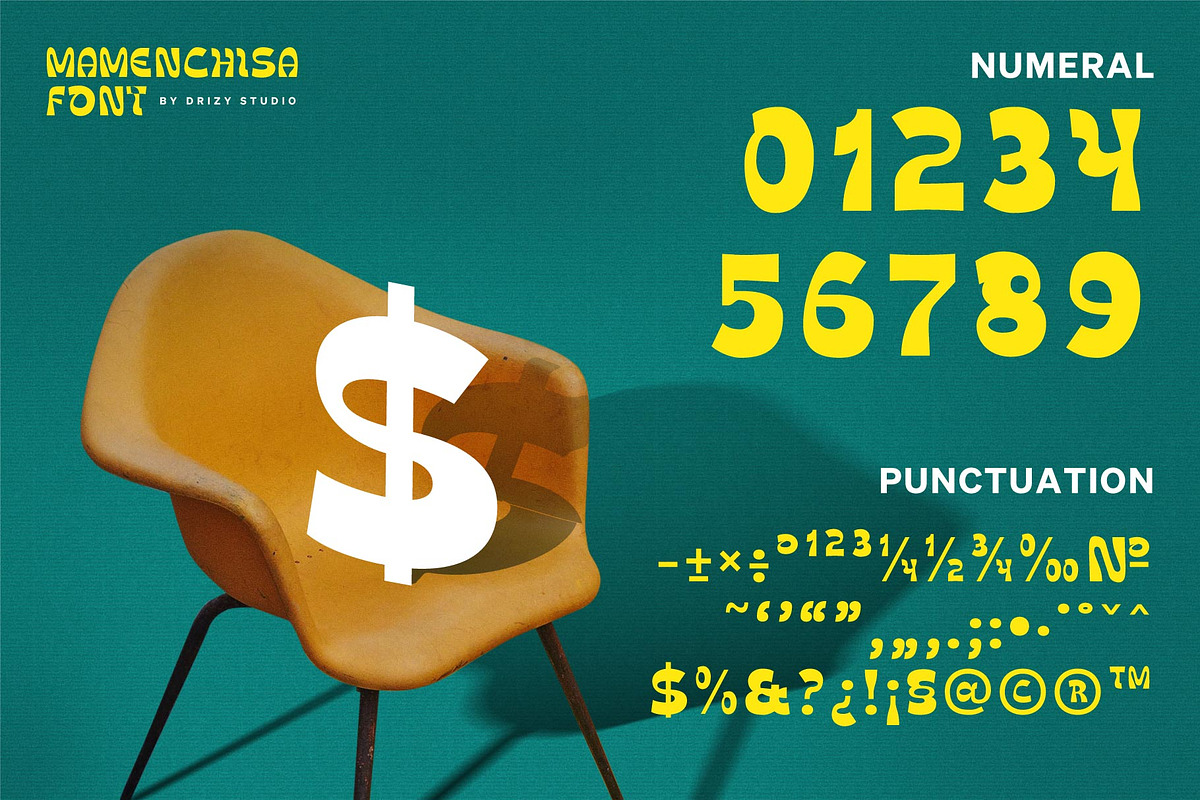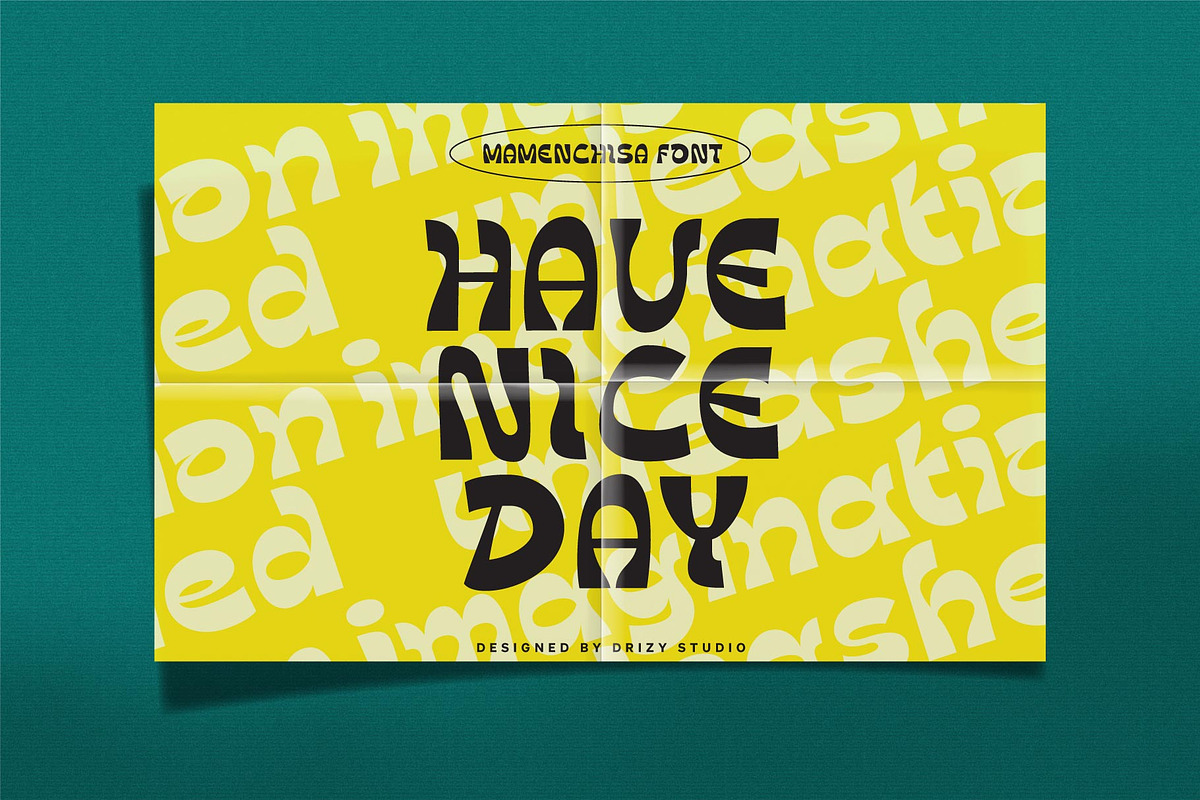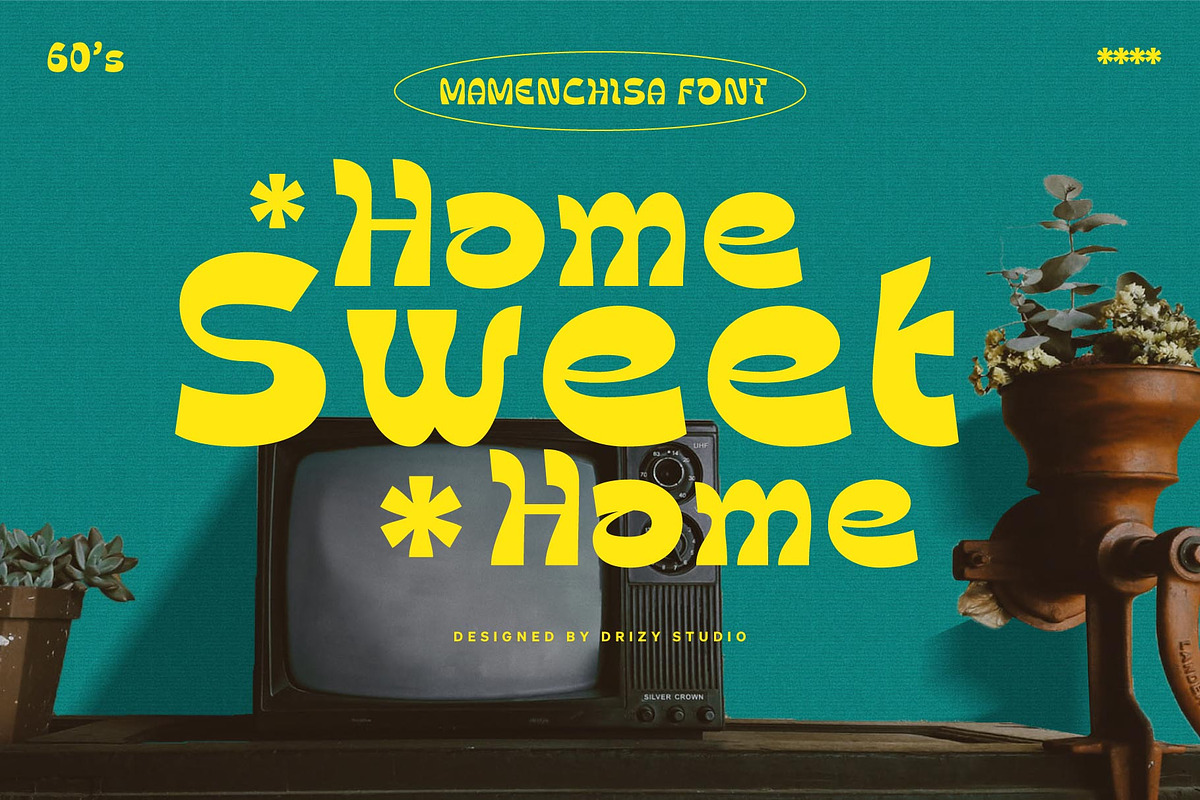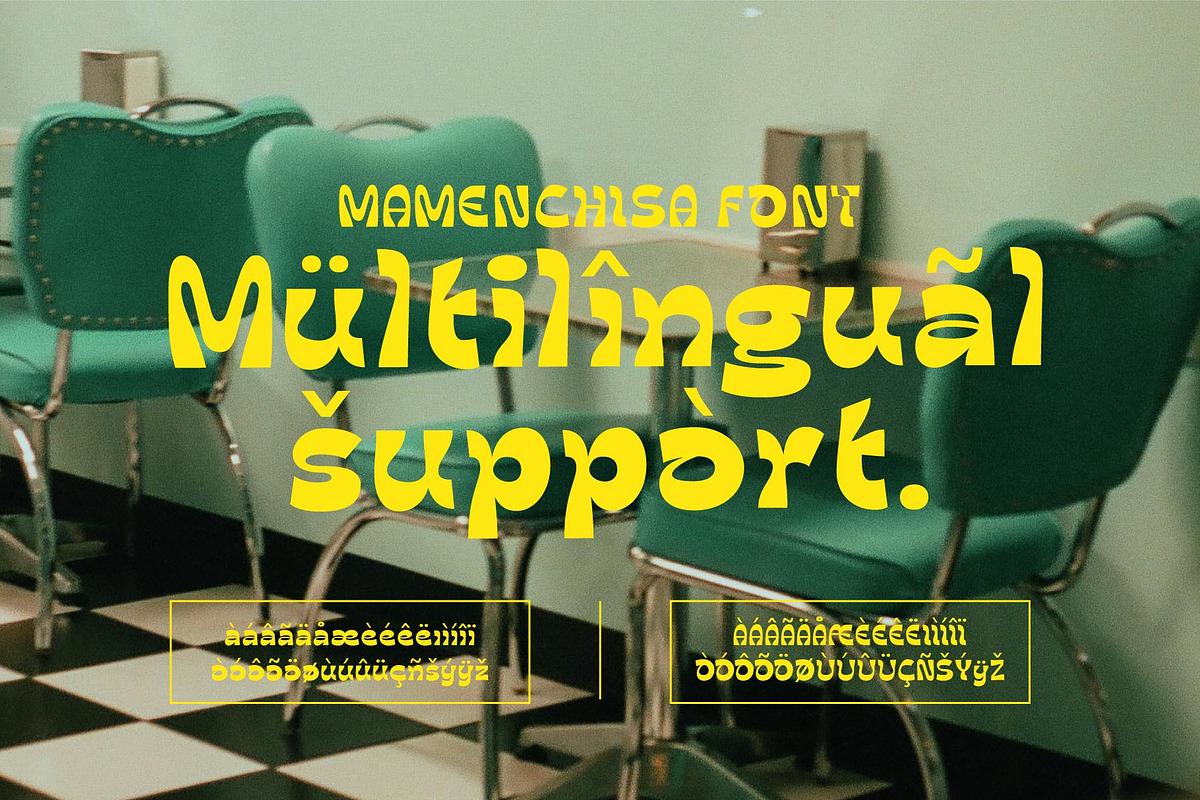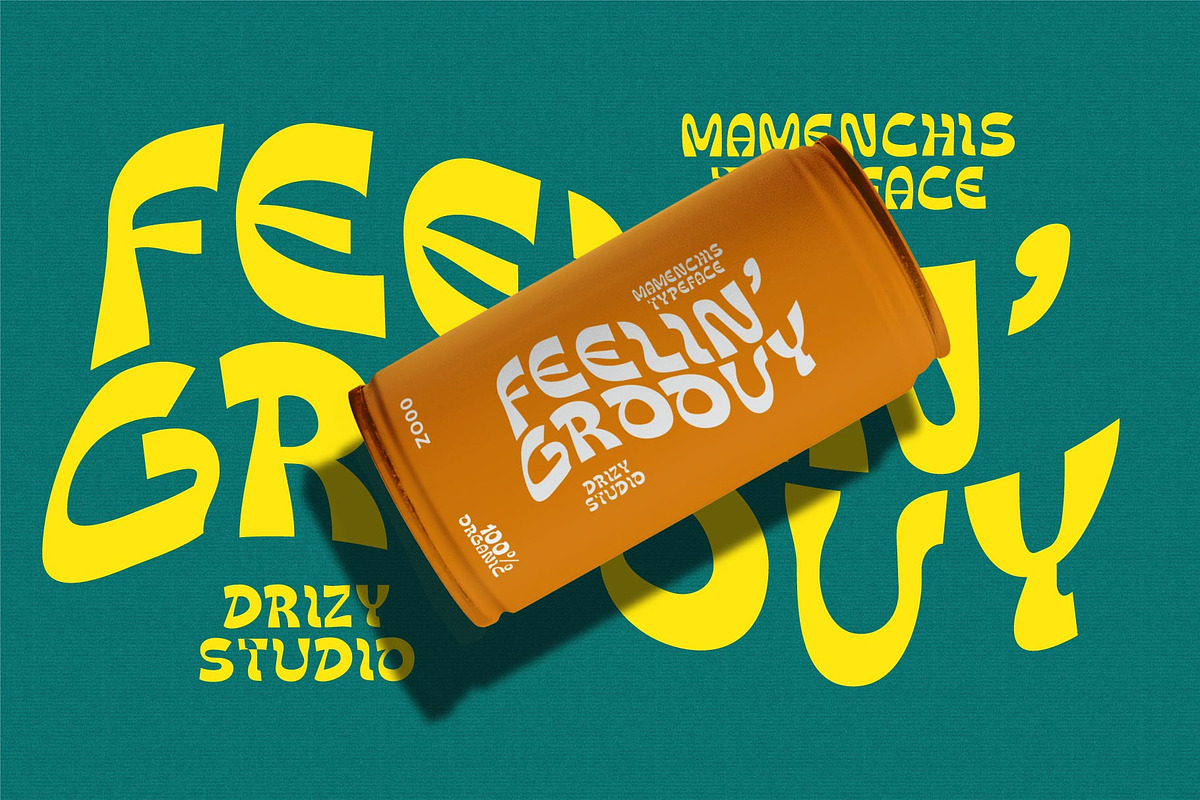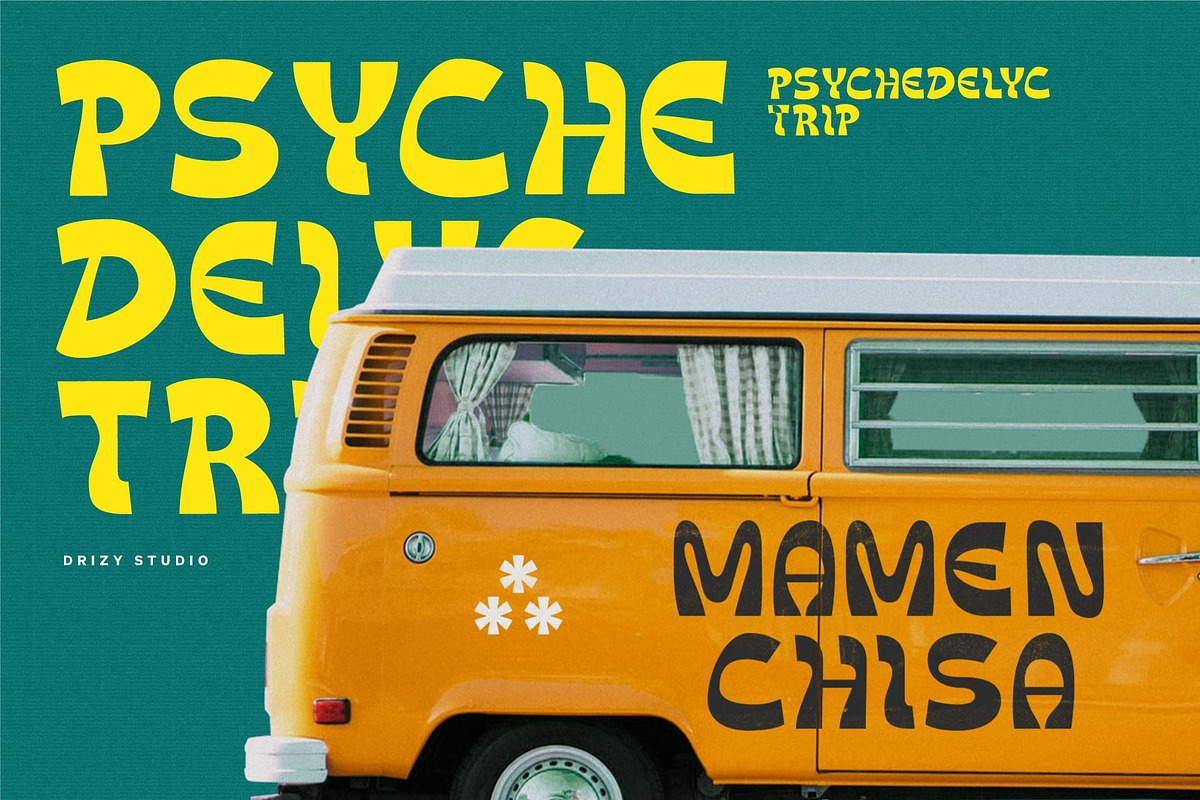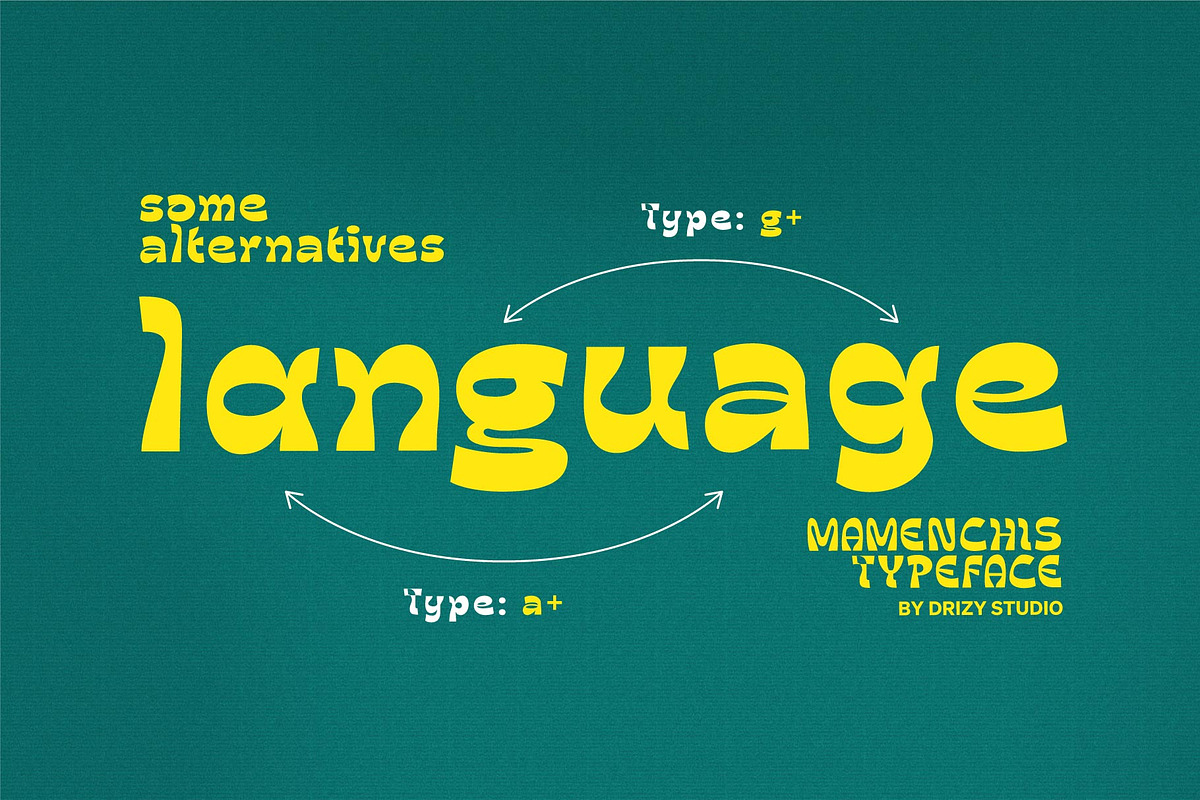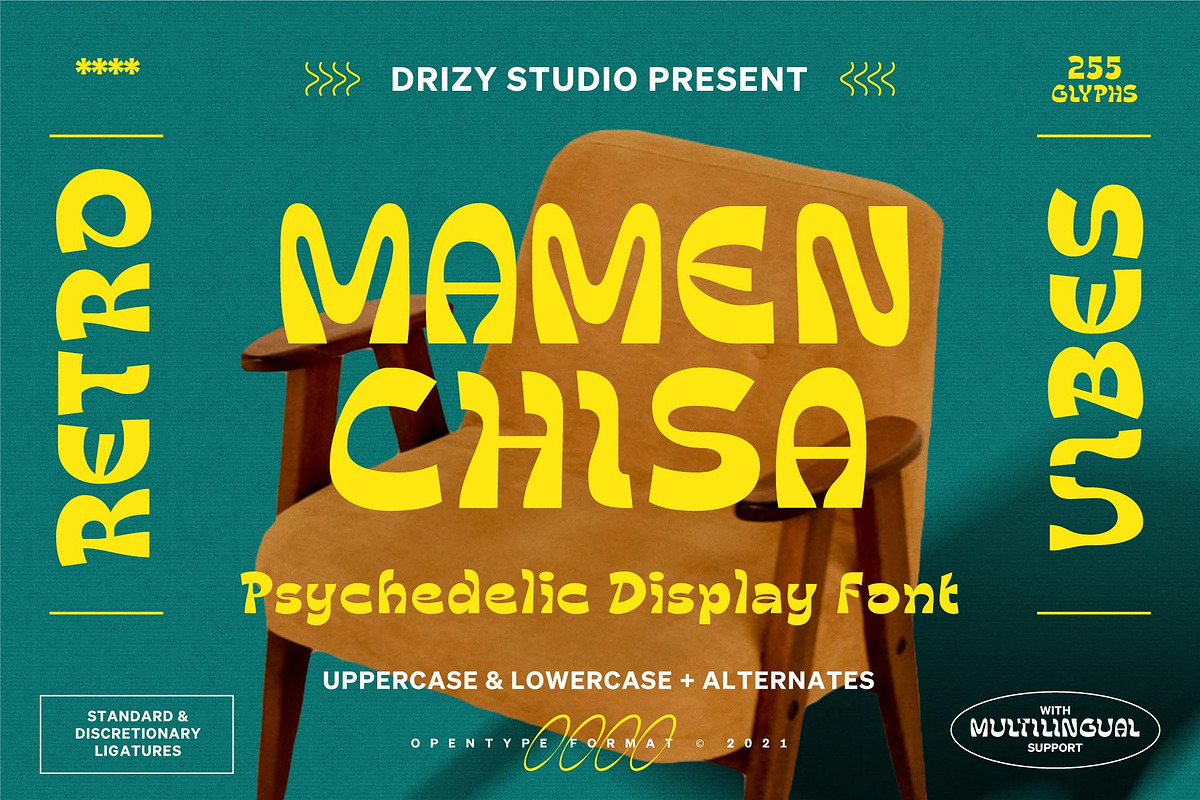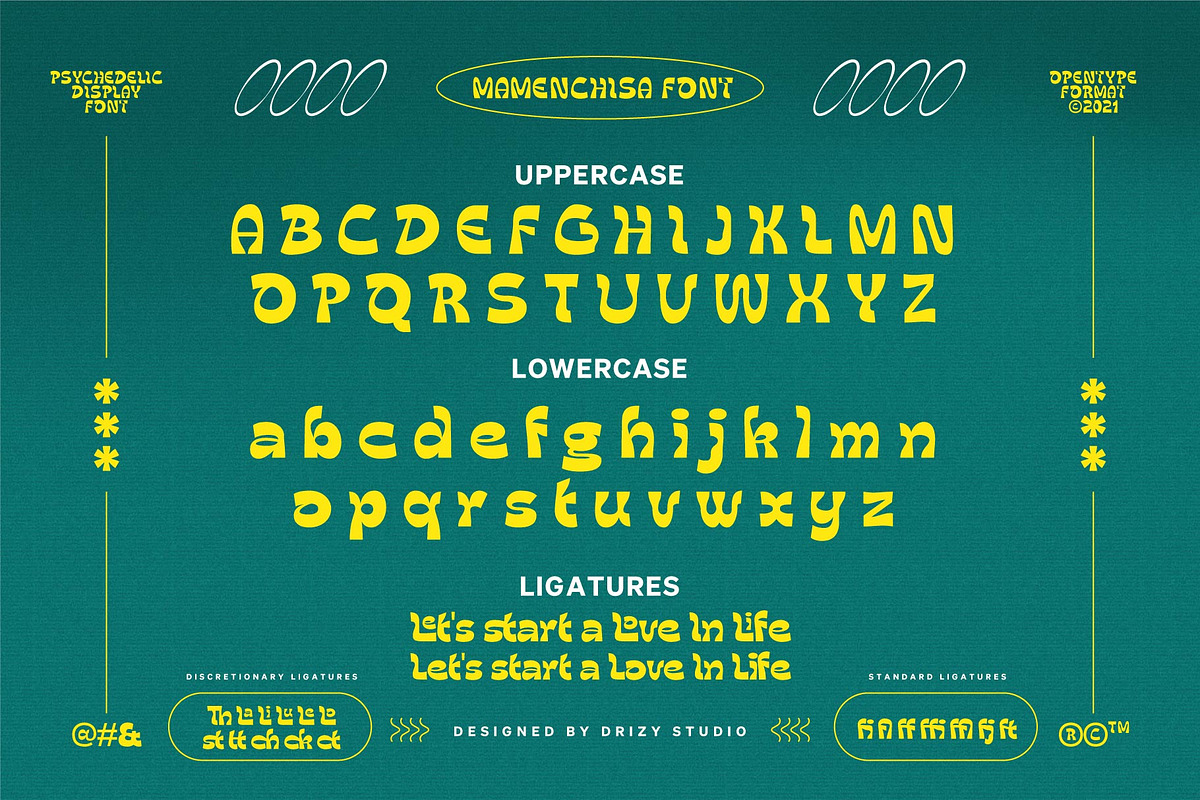
Mamenchisa
Introducing Mamenchisa! a beautiful Psychedelic Display Font from drizy! This is a unique display typeface perfect for gorgeous logos & titles.